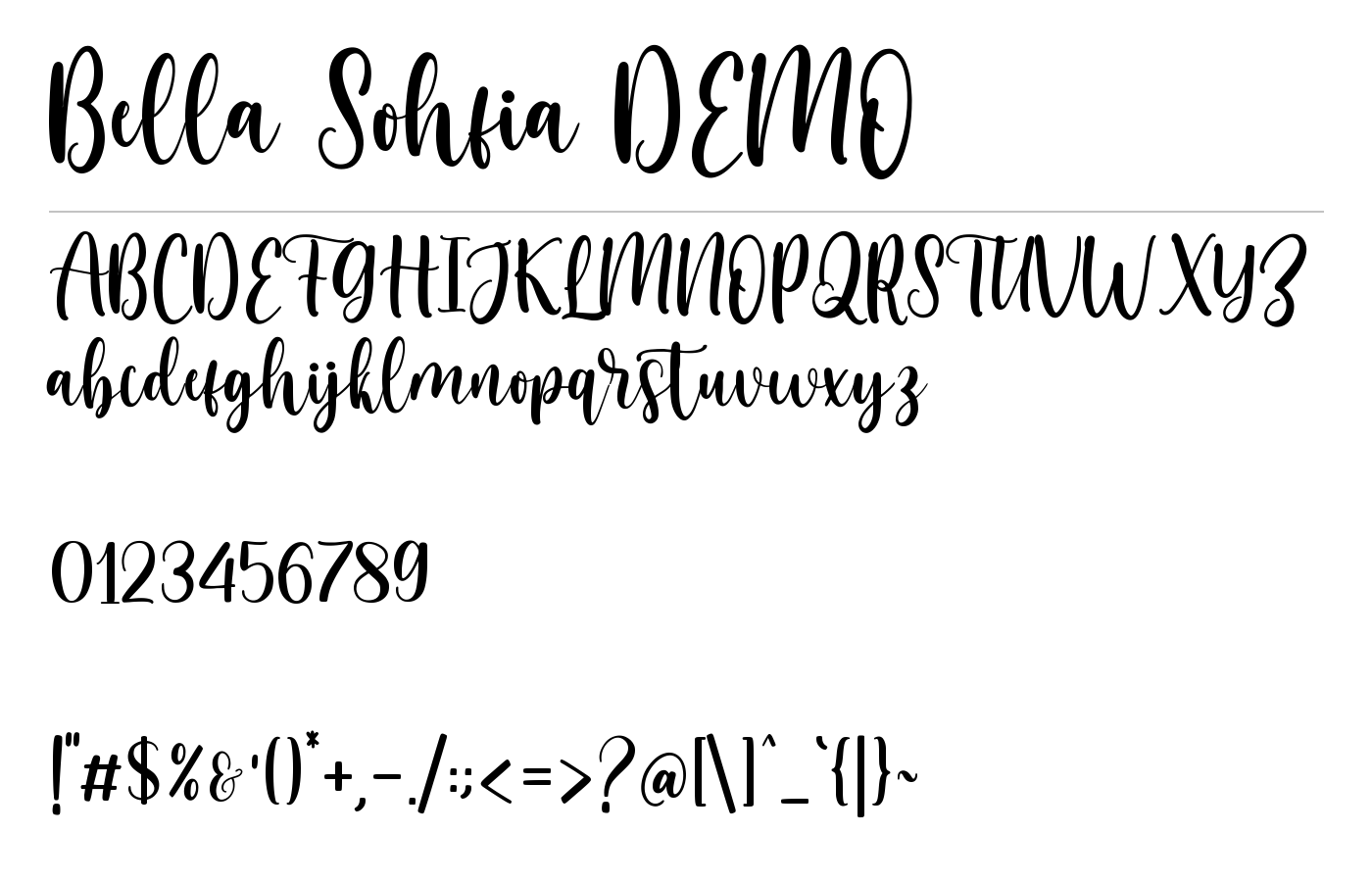
Bella Sohfia DEMO is a playful and elegant script font with a hand-lettered feel, featuring smooth, flowing strokes and moderate contrast that give it a friendly yet refined personality. Its distinctive letterforms with whimsical curls and a balanced mix of thick and thin lines make it ideal for creative branding, invitations, and headlines where a personal, artistic touch is desired. This font shines in projects that seek a warm, approachable style combined with a hint of sophistication.
Bella Sohfia DEMO Font
About Bella Sohfia DEMO Font